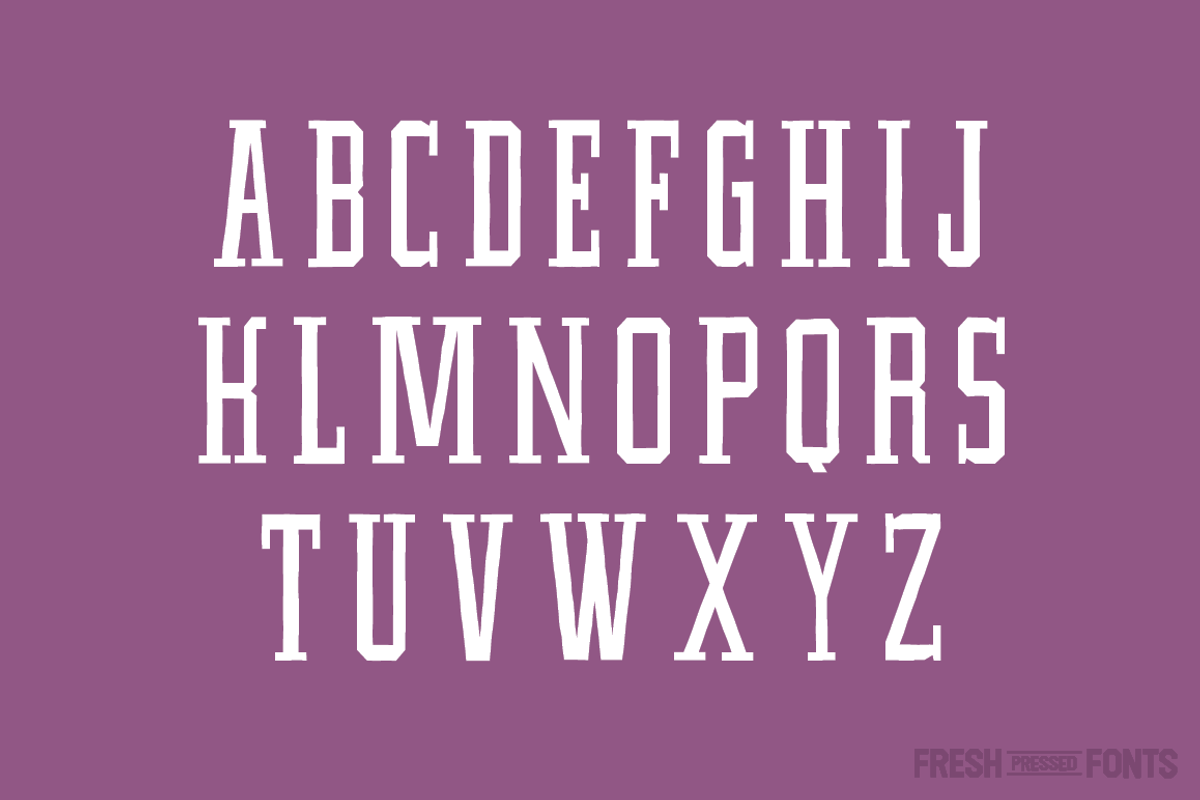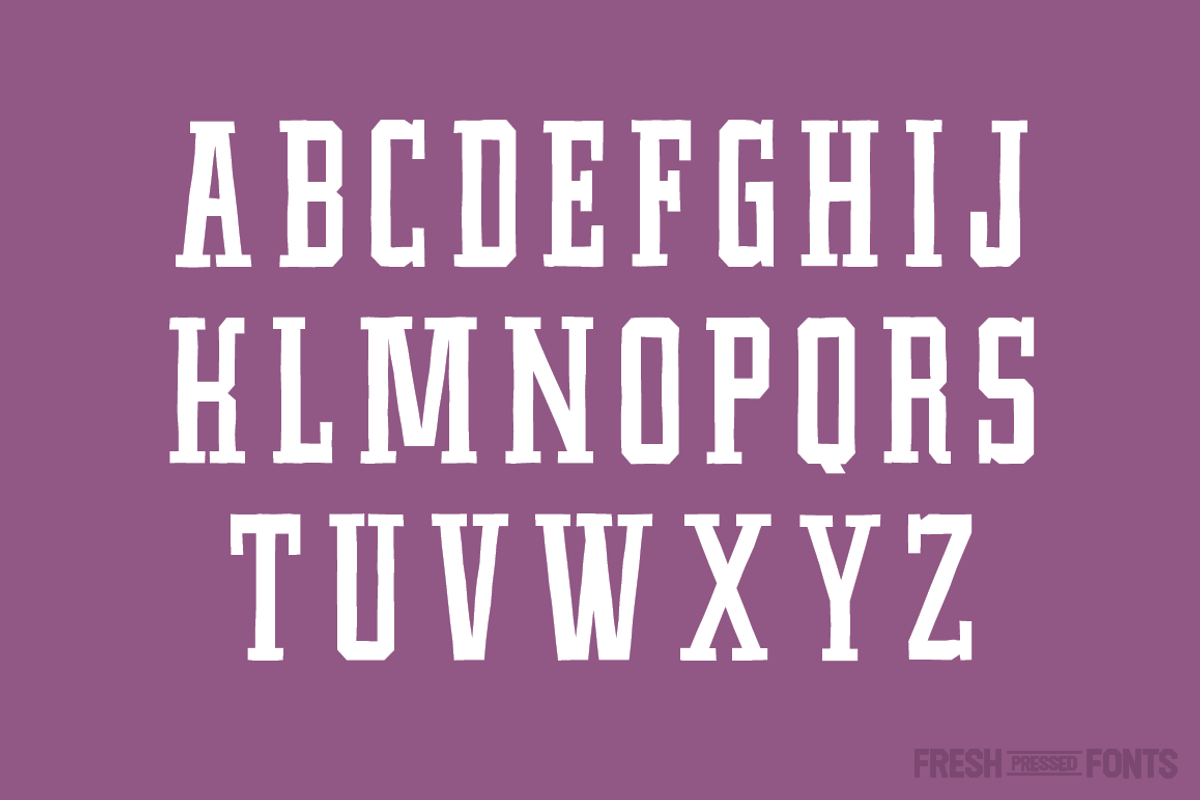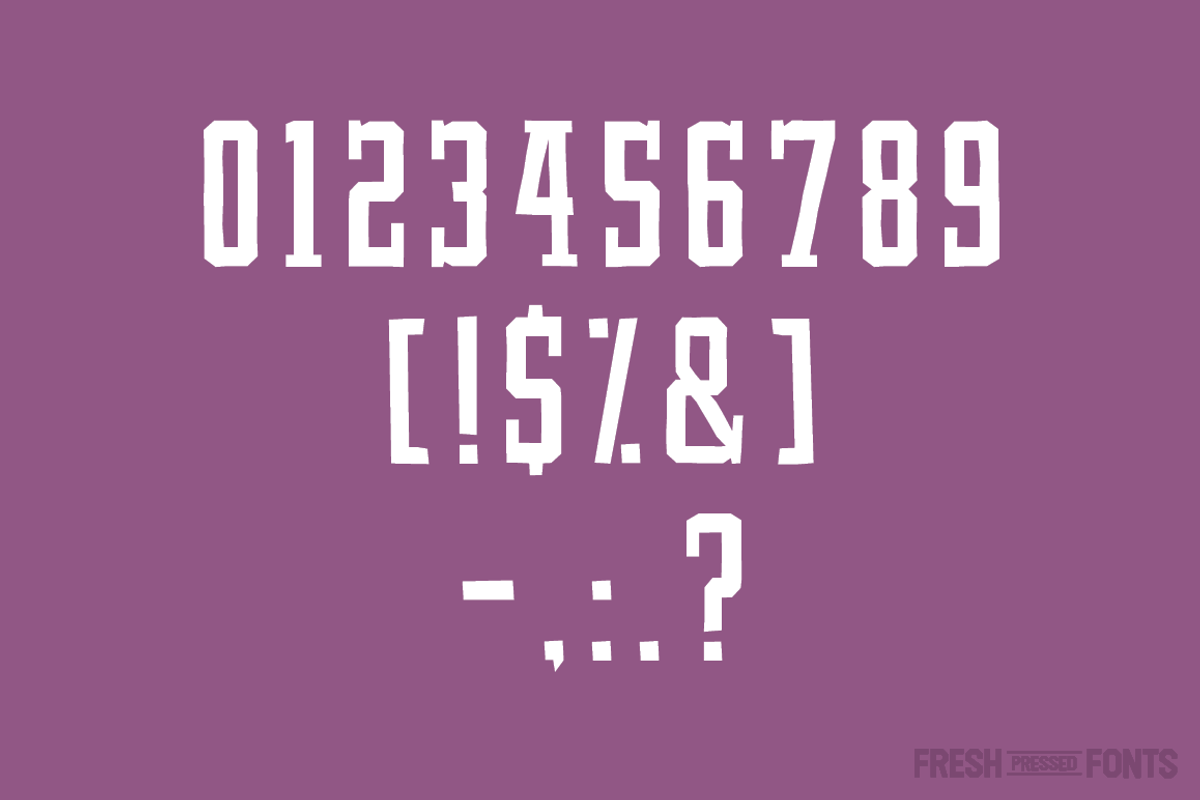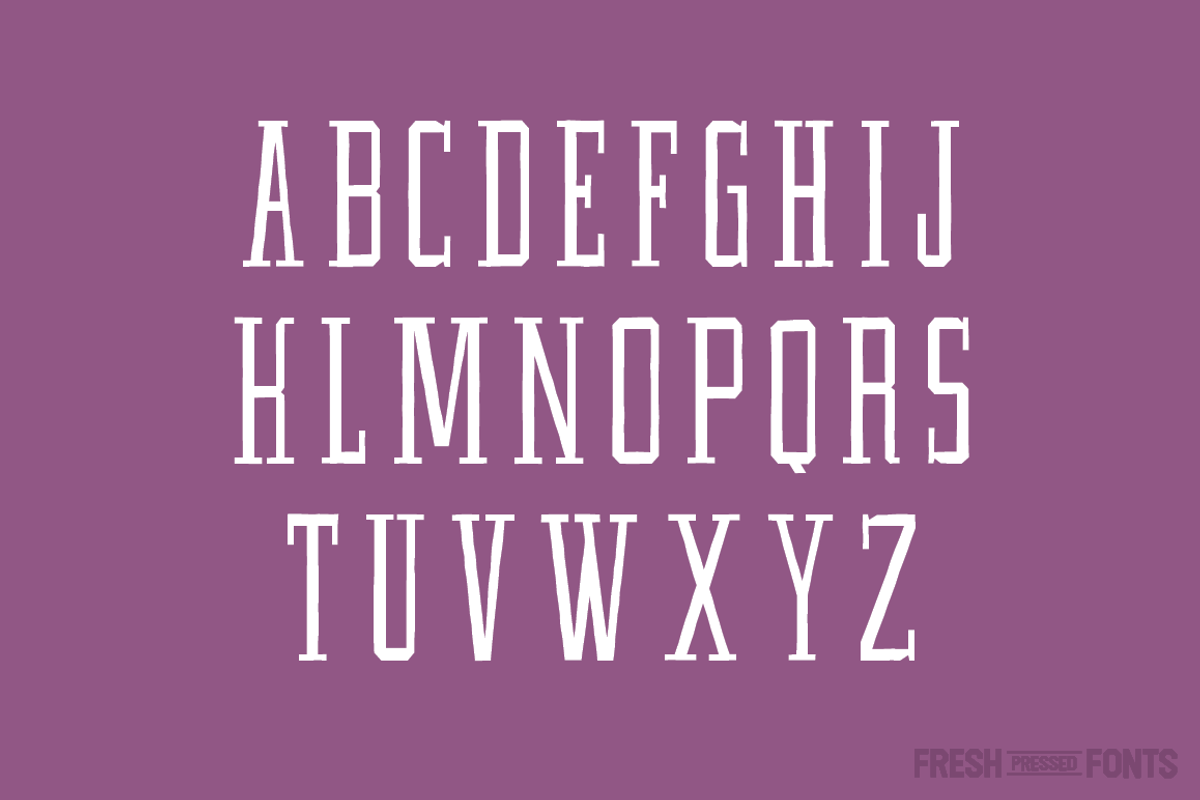
Fairtrade
Fairtrade by Fresh Pressed Fonts is a font selected for branding, posters, packaging, typography.
Why Fairtrade is worth a look
Fairtrade by Fresh Pressed Fonts fits naturally into Branding, posters, packaging, typography.